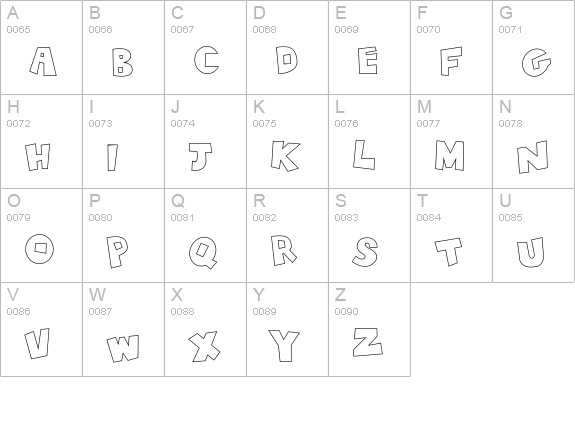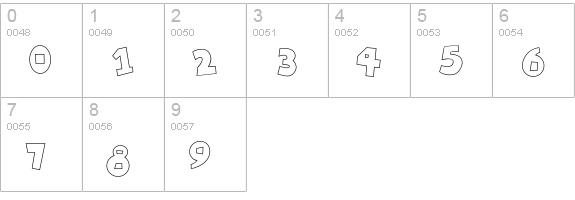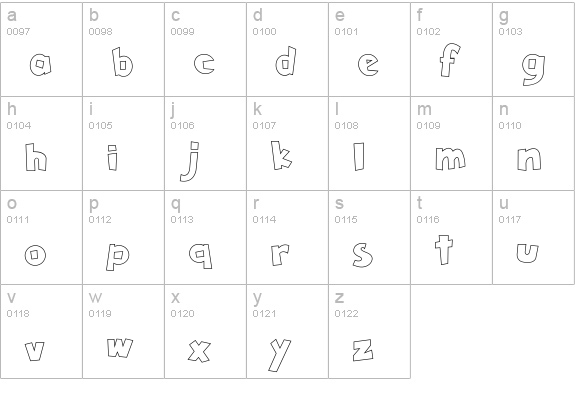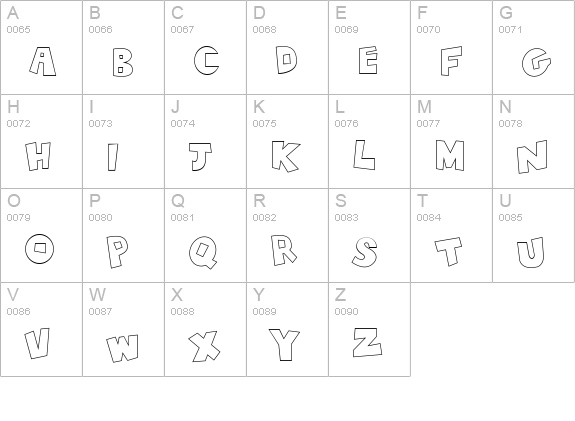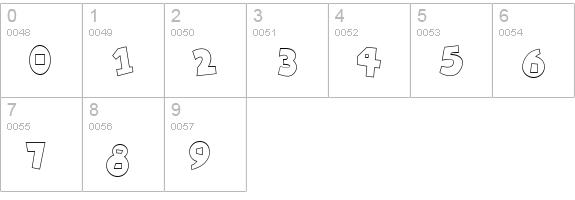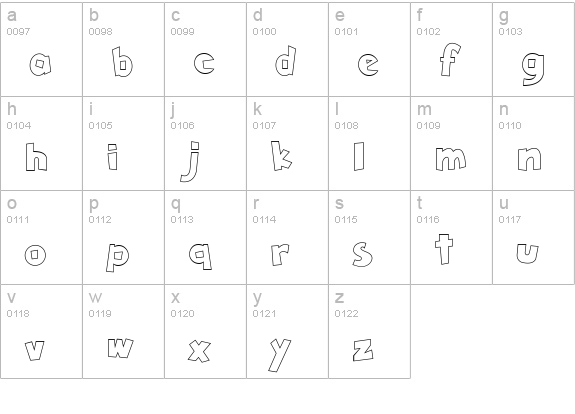
Tiki Tropic Outline Font Details
Tiki Tropic Outline font is a captivating and versatile typeface that brings a touch of tropical paradise to your designs. With its intricately designed outlines, this font exudes a sense of exoticism and adventure, making it perfect for a wide range of creative projects. Whether you are designing vacation brochures, beach-themed party invitations, or even branding materials for a trendy resort, Tiki Tropic Outline font will add a unique and eye-catching element to your designs. Its playful and whimsical style captures the essence of a tropical getaway, instantly transporting your audience to sandy beaches, swaying palm trees, and vibrant tiki bars. The best part? Tiki Tropic Outline font is available for free download at FontsMarket.com. This means that you can easily access and incorporate this stunning typeface into your projects without any hassle. Say goodbye to expensive font licenses and hello to creative freedom. Designed with attention to detail, Tiki Tropic Outline font boasts clean and crisp outlines that ensure readability even at smaller sizes. Its bold and distinctive character will make your headlines and titles stand out, while its versatility allows for seamless integration into both digital and print designs. So, if you are looking to infuse your designs with a tropical vibe, Tiki Tropic Outline font is the perfect choice. Download it for free at FontsMarket.com and let your creativity soar to new heights. Get ready to embark on a typographic adventure that will transport your audience to a world of sun, sand, and endless summer vibes.